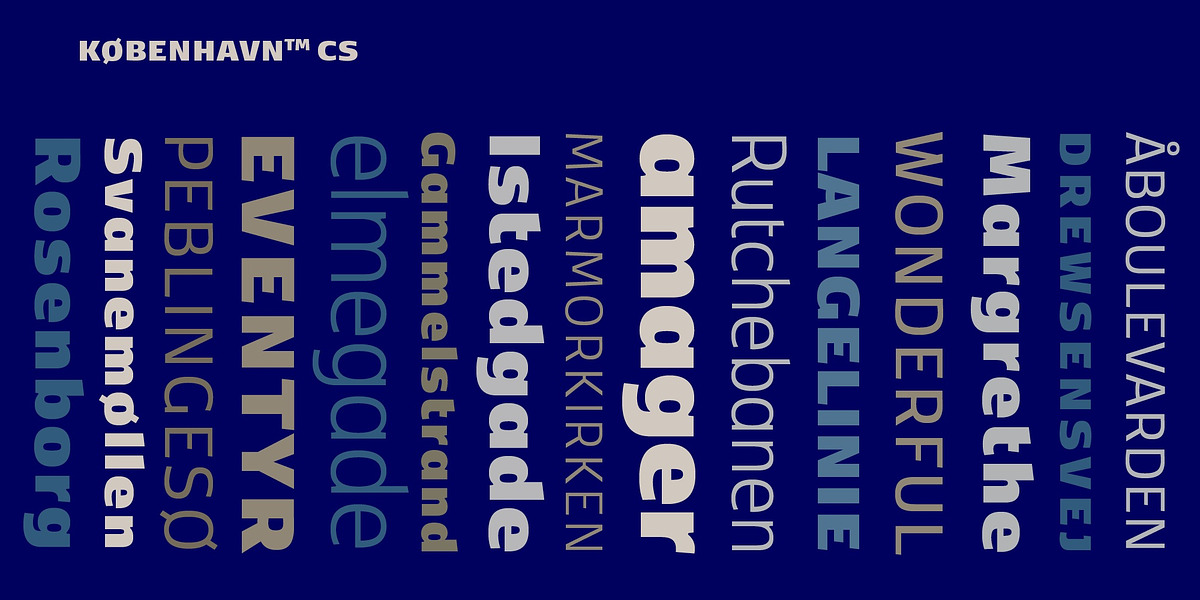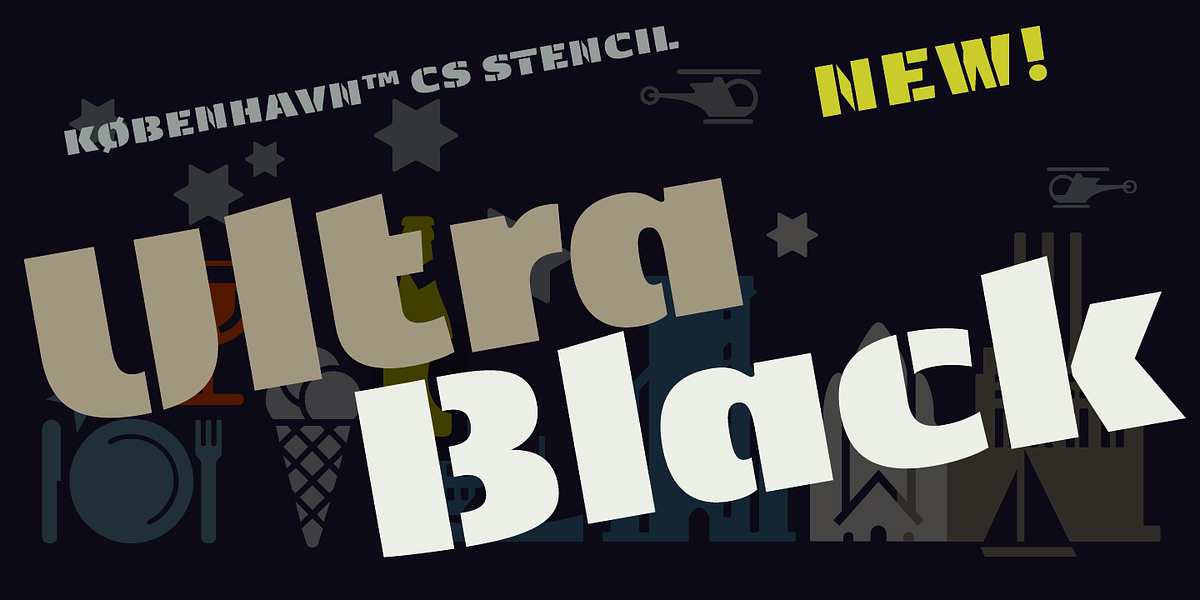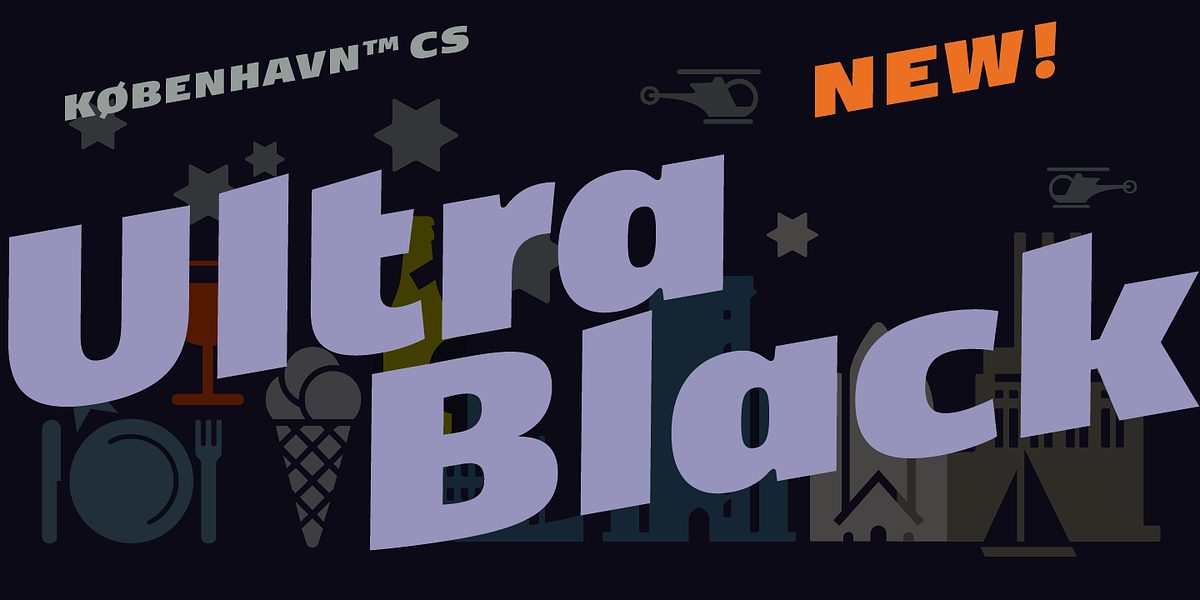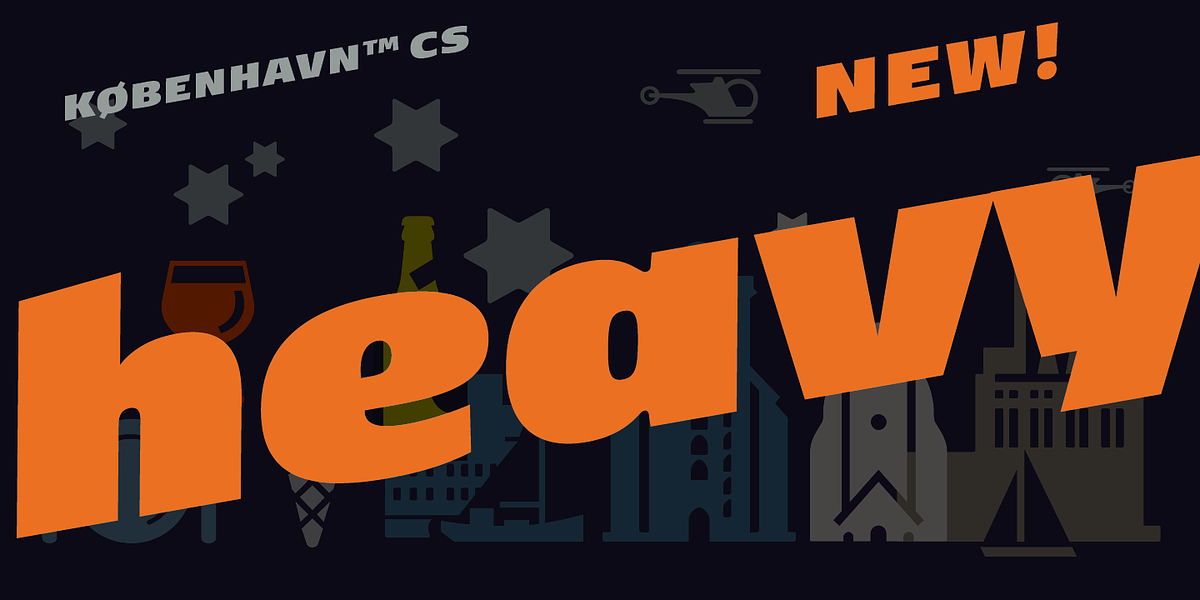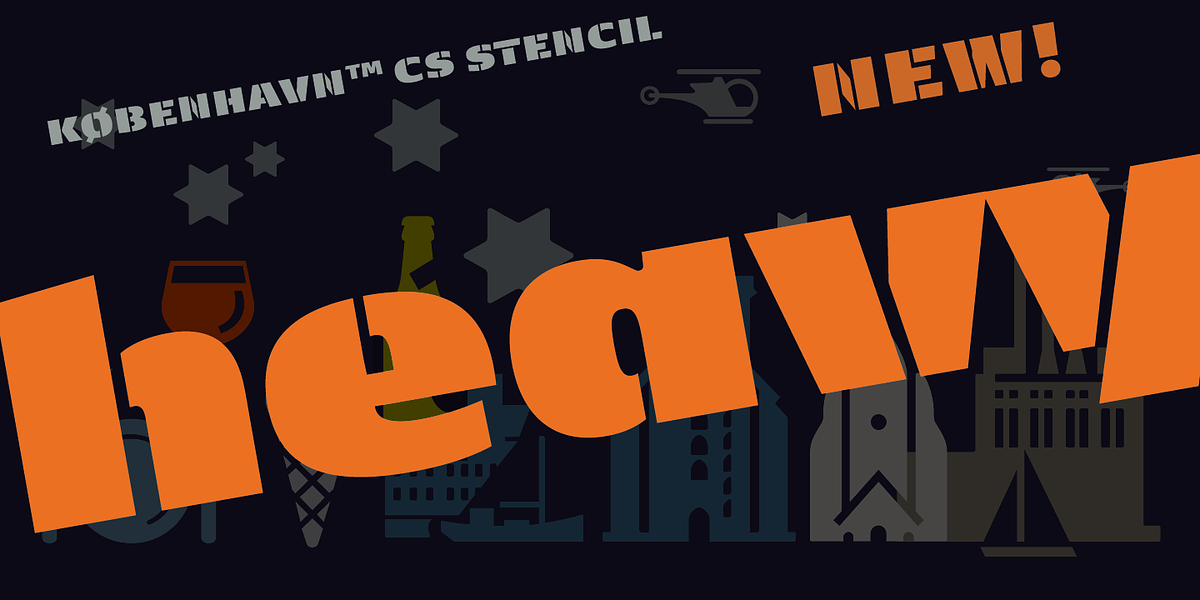
FP København CS
FP København Sans is a humanist sans serif font that now comes in condensed versions. Its clean, geometric forms have a stencil-like quality giving it a modern and distinctive look. The font would be well suited for branding and editorial design applications.